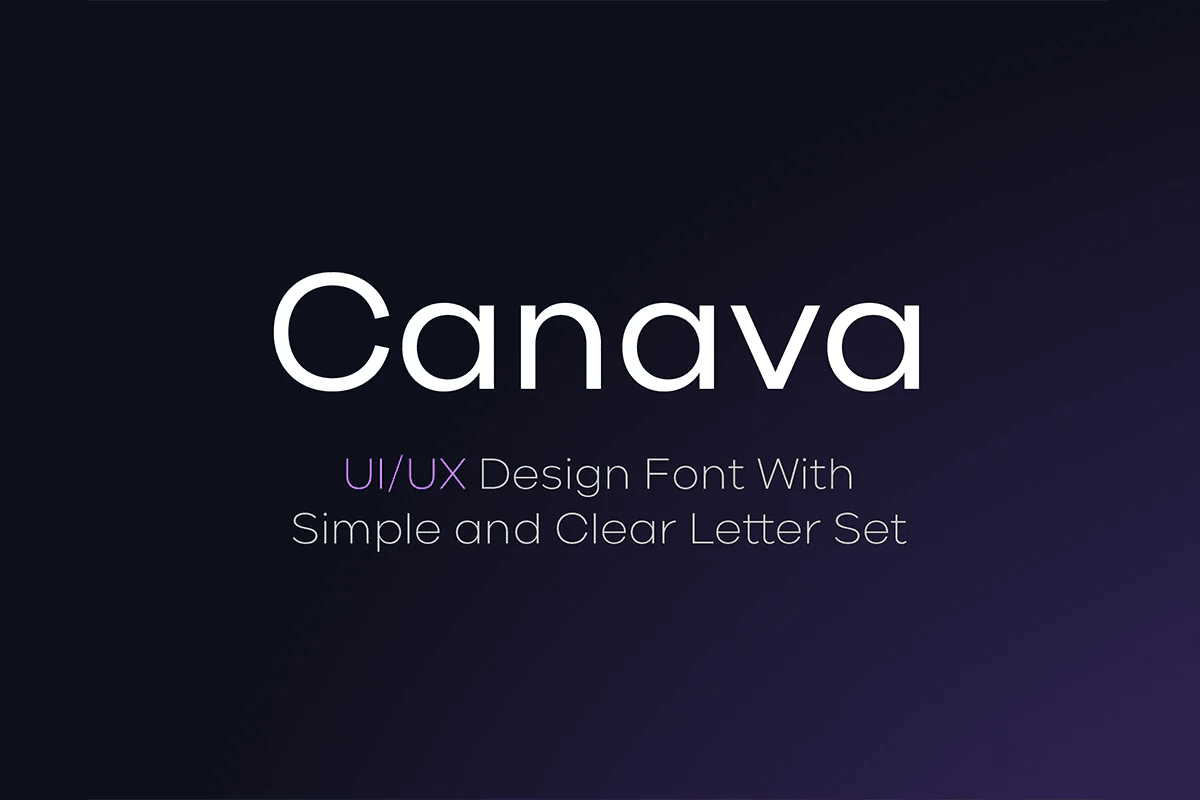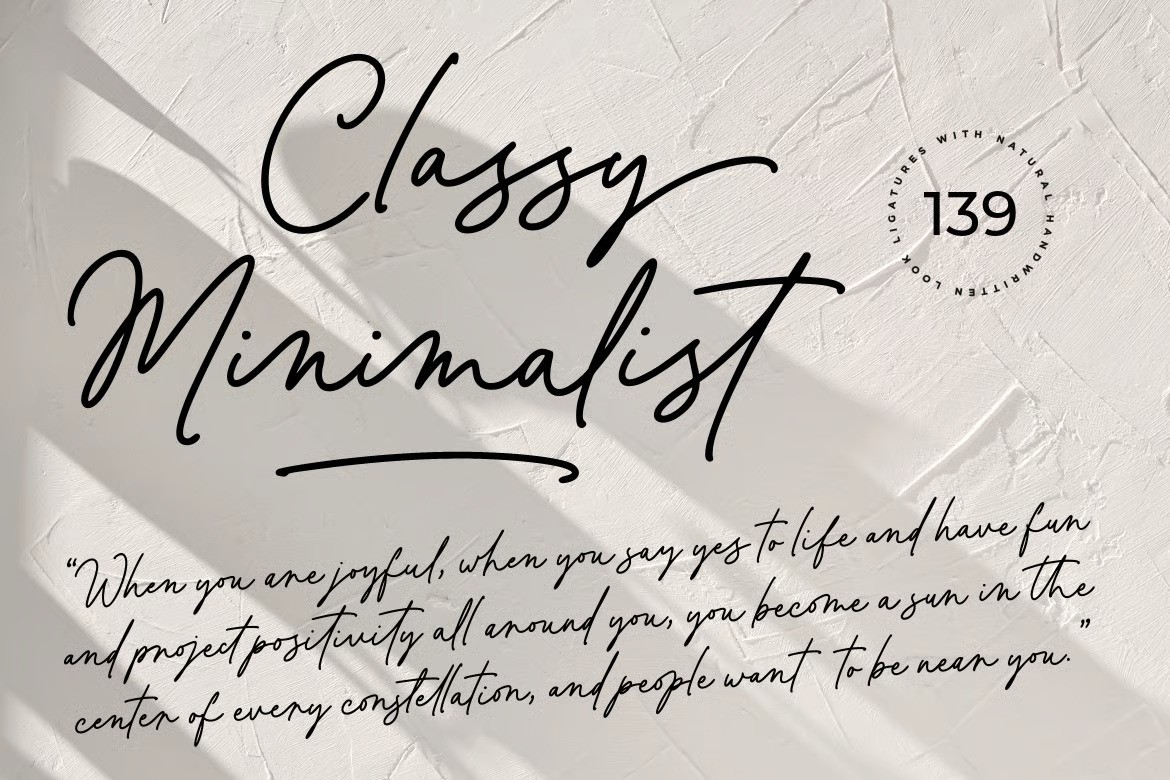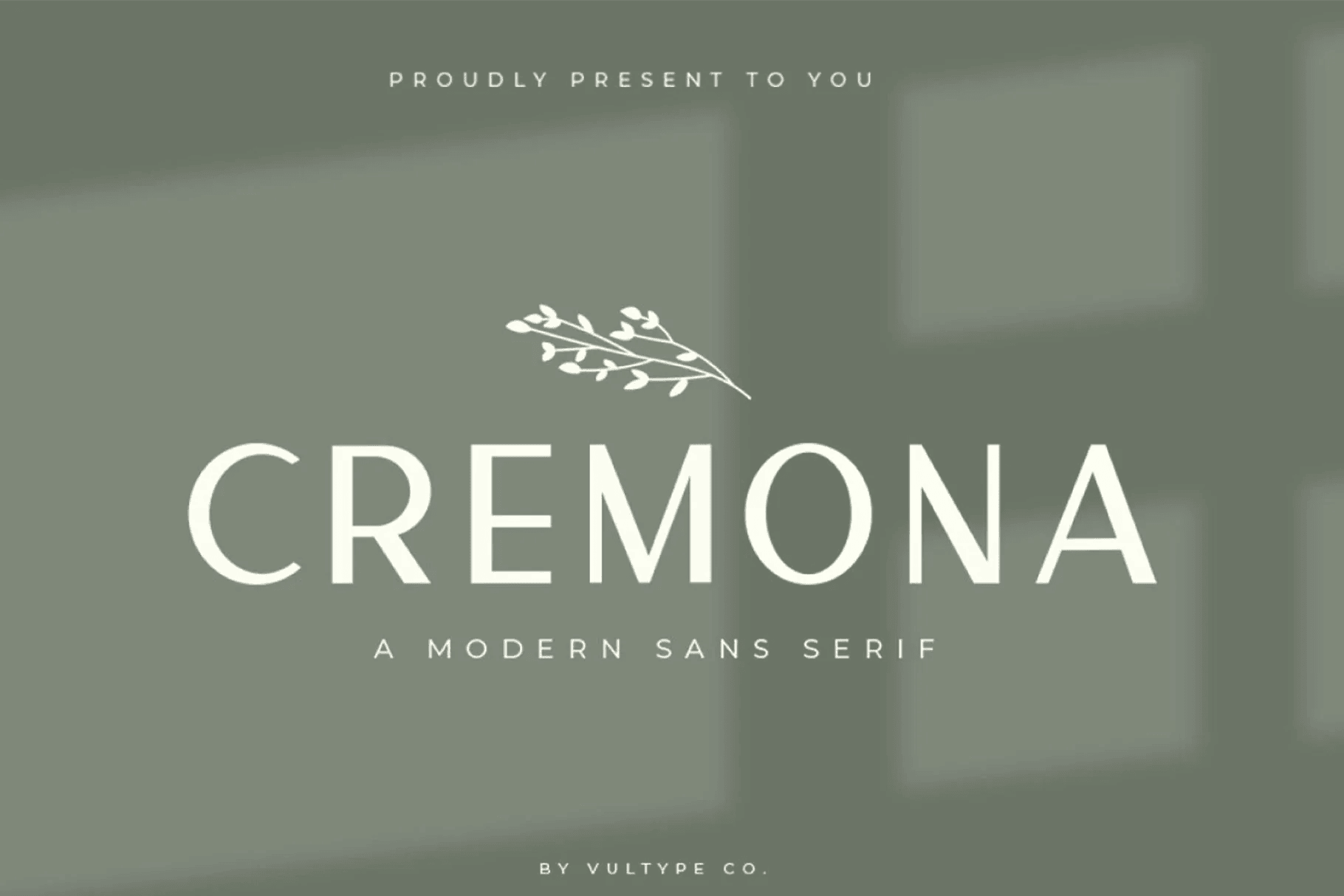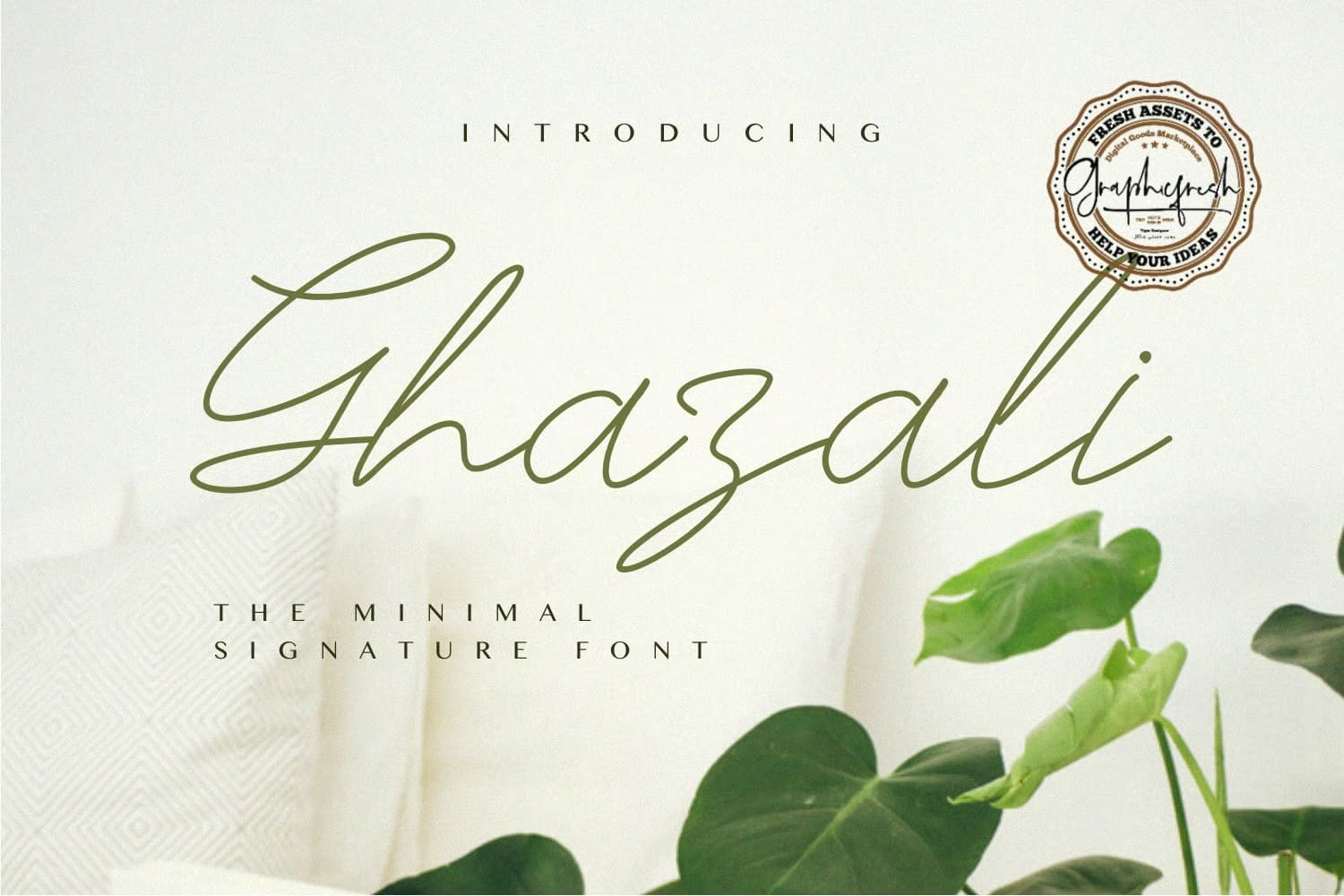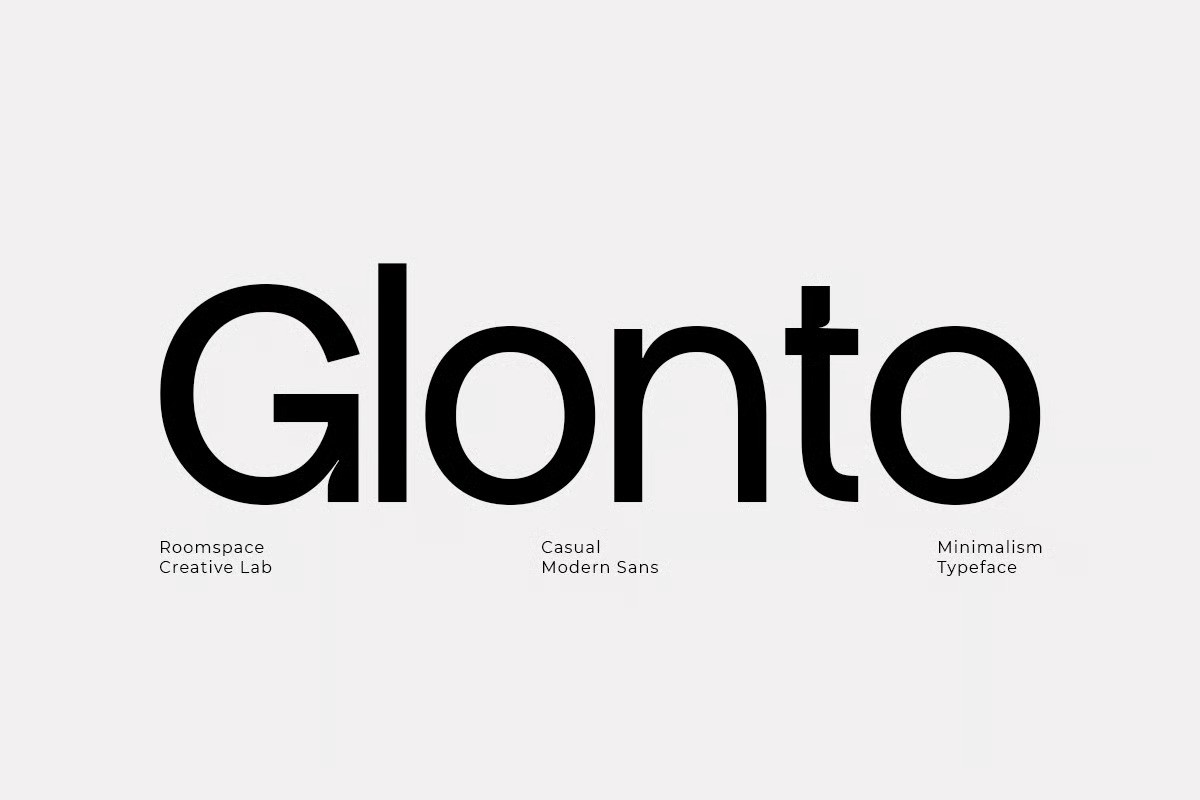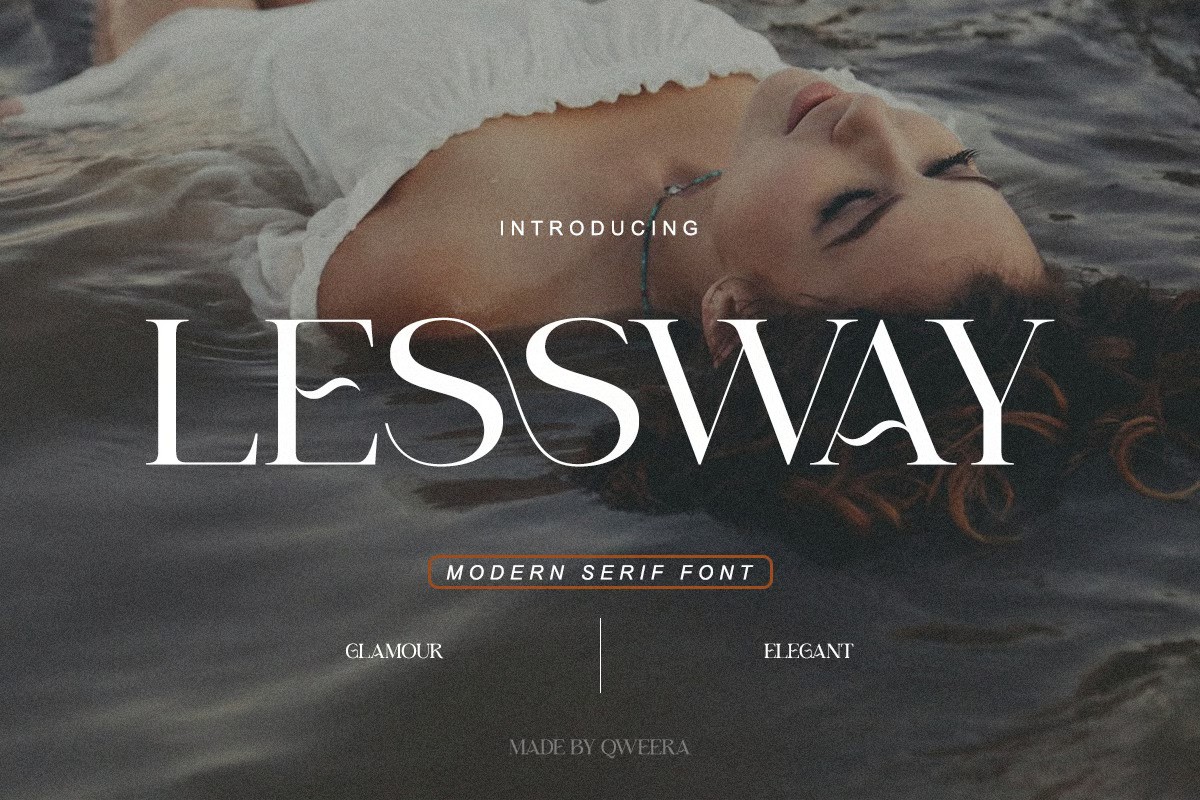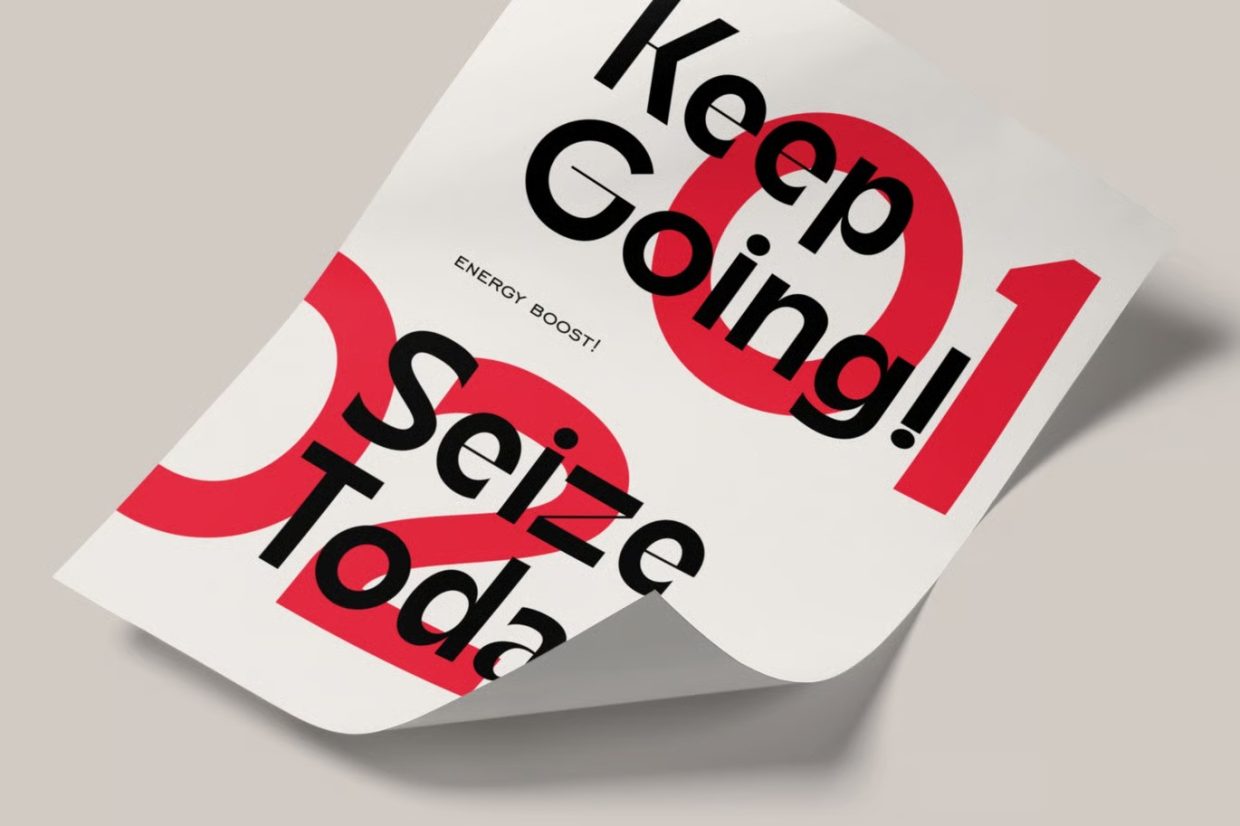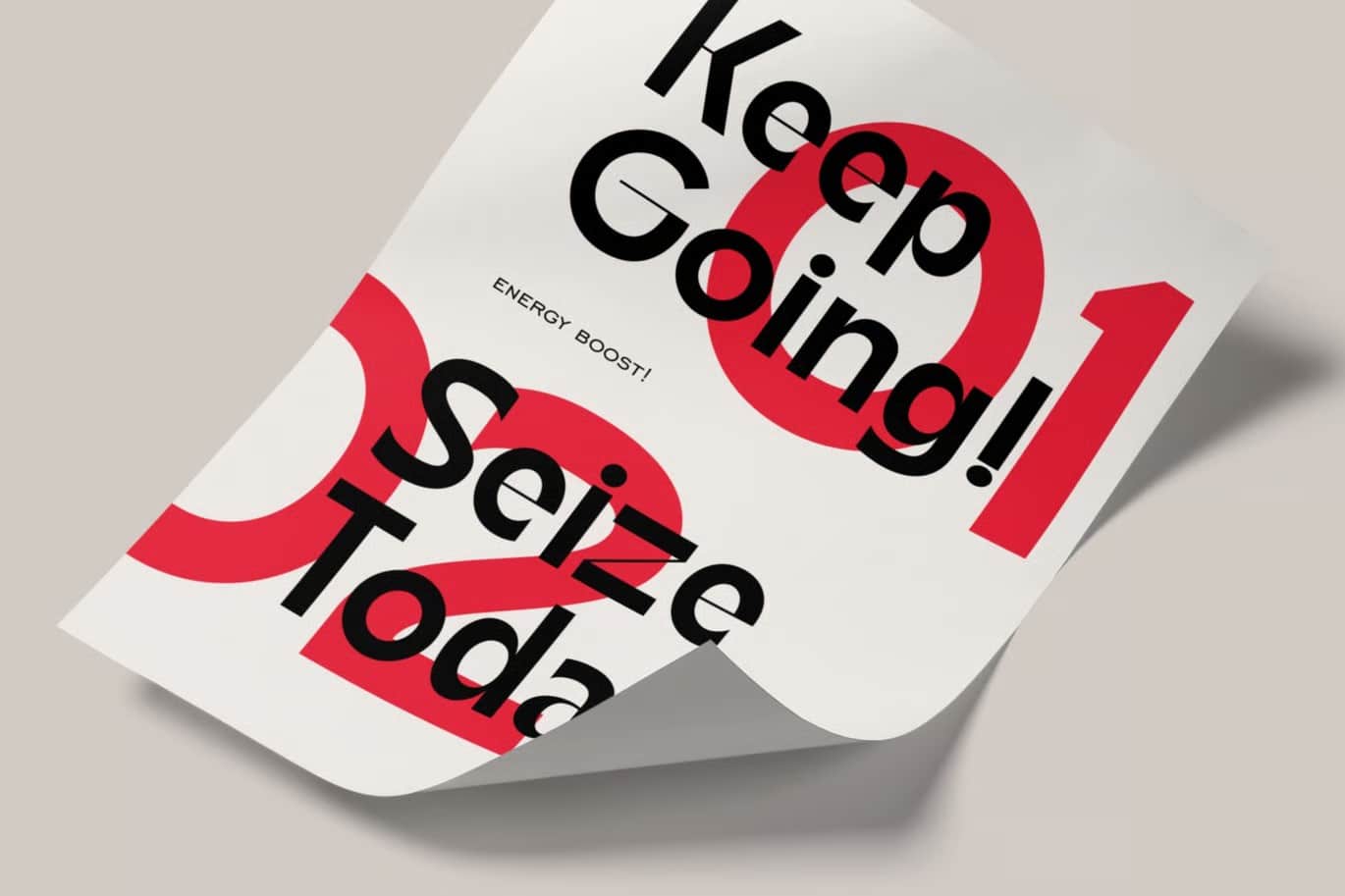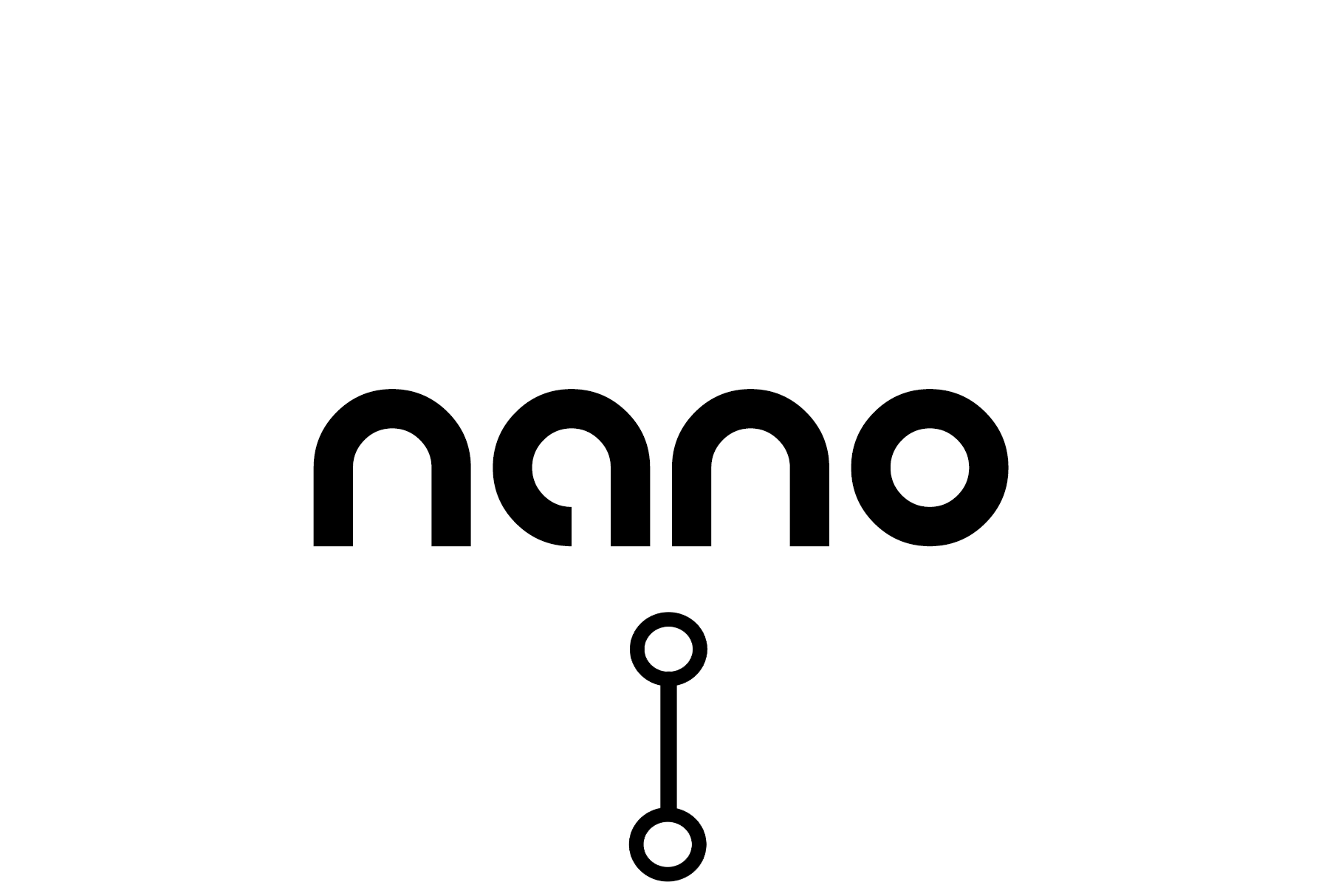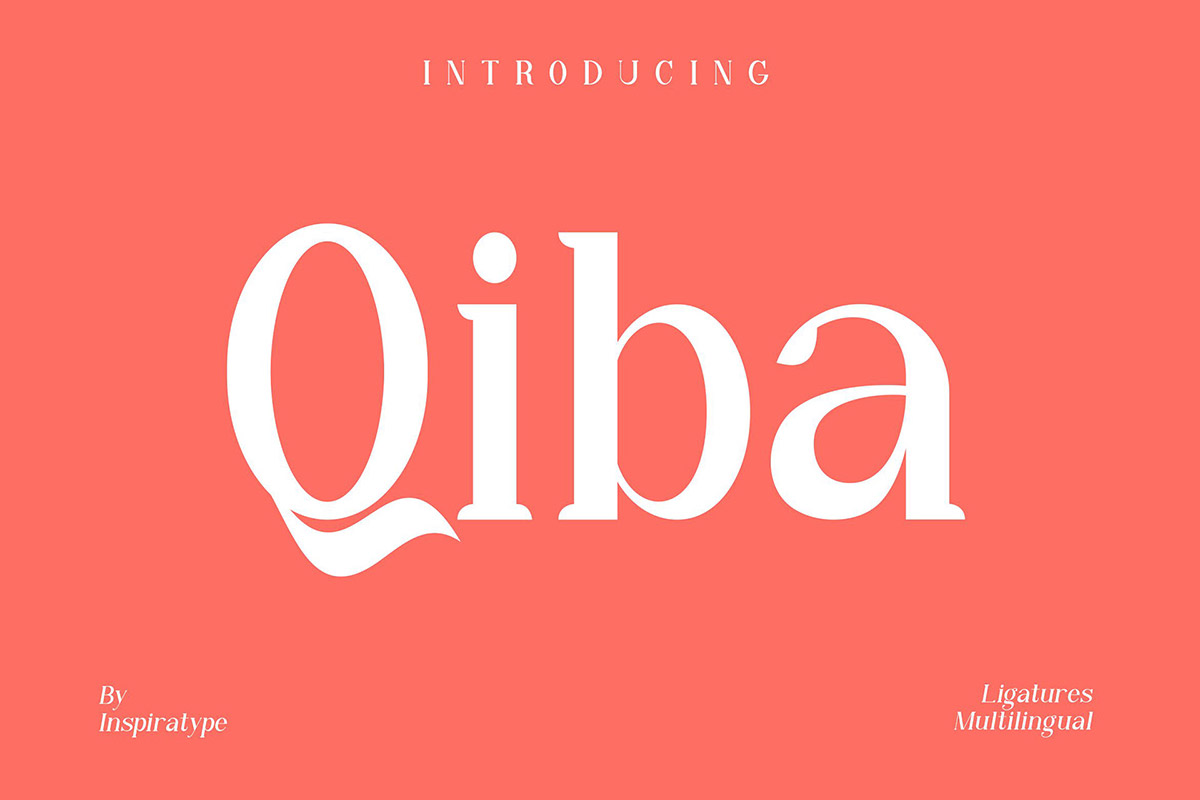
30 Minimalist fonts to create aesthetic confidence in design
Minimalist fonts may be what you've been looking for.
This time we offer you a wonderful minimalist fonts collection, whose typography is not easy to put together. We want you to get the most out of your design projects. These fonts are definitely worth your attention.
Minimalism came from Scandinavia, they were the first to find that spice that the whole world admires. Minimalist fonts are something that will fit into any design. You can incorporate it into magazines, titles, logos, brand identity, small and big text, no matter where because it will look complete, restrained and clean design.
Carnaby – minimalist fashion font
A minimalist fashion typeface
A sans serif typeface. It has minimalist look to fashion branding, interior designs, advertisements, websites, and more. Comes in uppercase and lowercase characters, numerals, punctuation, alternates, ligatures + multilingual support.
Nemonty – minimal serif font
A graceful, thin serif font designed to highlight your brand image. Includes a range of alternates, providing creative flexibility for custom wordmarks and unique logo designs. Ideal for luxury branding, packaging and editorial use. Comes in uppercase and lowercase characters, numerals, punctuation, alternates, ligatures + multilingual support.
Mindglow – modern minimalist font
A minimalist modern sans font
Elegant minimalist classic sans serif font. It has a comprehensive support for both uppercase and lowercase letters, punctuation marks, and numerals. This font is versatile and can be used across various applications, including branding, invitation design, editorial design, web design, packaging, product catalogs and more.
Brogman – minimalist display font
An elegant minimalist sans serif typeface
It is an elegant minimalist sans serif display font crafted for sophistication and clarity. Its clean lines, refined shapes, and modern proportions make it a versatile choice for branding, luxury packaging, editorial layouts, and digital interfaces.
Towards – minimalist stencil font
A minimalist stencil font
A minimalist stencil font so good going for your designs such as logos and branding, photography, invitations, watermarks, advertisements, product designs, stationery, wedding designs, and more. PUA encoded characters. Include multilingual support.
Vistol – free black sans serif font
A free sans serif font
A neo-grotesque sans-serif typeface family. It suitable for printing, packaging, articles, titles, editorials, publishing, logos, branding, small or large text usage. Comes in multilingual support.
Canava Grotesk – free font
A free simple and clear font
A clean and sleek appearance ensures high readability, which means it’s a great fit for your UI/UX designs. achieved through multiple OpenType features such as case sensitive forms, contextual and stylistic alternatives. It supports many languages.
Download Font
Mango – free round font
• Free for personal use only.
A free round style font
A free geometric and minimal lowercase font. This fresh futuristic font includes a unique character set with some spectacular clean letterforms. It suitable for any modern design projects related to the future, perfect for original logos and headlines.
Download Font
Nano – free minimal logo font
• Free for personal and commercial use.
A free minimal logo font
A new free futuristic lowercase font. It includes ultra modern minimalist letterforms which make it perfect for modern branding and logos.
Download Font
Qiba – free simple serif font family
• Free for personal use only.
A free simple serif font family
A font made by hand, inspired by classic posters. It comes with uppercase and lowercase characters. Perfect for invitations, monograms, wedding, fashion, branding, signatures, stationery, logotypes, letterhead, posters, apparel designs, labels, and more.
Download Font
Limerock – free sans serif font
• Free for personal use only.
A free sans serif font
This clean and simple minimalist style font is free to use. It includes both uppercase and lowercase characters, as well as numbers and symbols. The font is most suitable for creative projects such as logos, titles, headlines, and more.
Download Font
Cremona – free modern sans serif font
• Free for personal use only.
A free modern sans serif font
A clean and elegant style font makes it a great choice for designing professional branding designs. The free version of the font can be used with your personal projects.
Download Font
Hand Midas – modern minimalist serif font
A minimalist serif typeface
A minimalist serif font that exudes an aura of wealth and sophistication, as the name suggests. Suitable for conveying messages of luxury and exclusivity. Comes in uppercase and lowercase characters, ligature and multilingual support.
Download Font
Disttopian – free san serif font
A free minimalist sans serif font
An elegant sans serif font. Its perfect for any branding projects, lettering, invitations, stationery, quotes, logos, blog headers, posters, and more. Comes in OpenType features.
Download Font
Classy Minimalist – a handwritten font
An minimalist handwritten font
A stunning handwritten typeface that features 139 ligatures for a natural and sophisticated handwritten look. Its beauty is perfect for weddings design, valentines, invitations, branding, quotes, and more. Comes uppercase and lowercase characters, numbers, symbol, punctuation, alternates, ligatures, swashes and PUA encoded.
Download Font
Cecilia Octavia – minimal sans serif font
A minimal display font
A minimal sans serif font with modern and elegant vibes. It perfect font for modern logos, monograms, attention grabbing headlines and invitations. The package includes two weights – (regular and bold). It is also multilingual and comes with a set of special glyphs.
Download Font
Empira – minimalist font
A minimalist rounded font
A minimalist rounded font in regular and italic weights. Soo good for titles, headlines, covers, logos, and more.
Download Font
Lessway – elegant luxury logo font
An elegant luxury logo font
A sophisticated serif typeface that exudes refined elegance and contemporary luxury. Featuring both Regular and Italic styles with exquisite alternates and ligatures, this font is meticulously crafted for high-end branding, luxury logos, premium packaging, and editorial designs.
Download Font
Auvelle – minimal sans serif font
A minimalist hairline display typeface
A display font that perfectly fits for headlines, logos, branding, packaging, t-shirts, or any design with a stand out or big typography. Comes in multilingual support.
Download Font
Ghazali – a minimal signature font
A minimal signature font
It comes with an elegant and feminine style which is ideal to make any design stand out. This font is perfect for branding, wedding invites, magazines, mugs, business cards, quotes, posters, and more. Includes uppercase and lowercase characters, numeral, punctuations, PUA encoded and support international languages.
Download Font
Bon Apit – a handwritten font
A natural handwritten font
A monoline script typeface with extra features. It comes in a handmade style and can perfectly be used for an elegant addition to any logos, invitations, product packaging, hand-written quotes, and more. Includes multi-lingual support and special ligatures.
Download Font
Rota – free sans serif font family
• Free for personal and commercial use.
A free geometric font family
A complete free geometric font family. It has the versatility to be used for the headings or body copy of whatever creative project you’re working on. With 20 fonts, you’re bound to find one that will fit all your needs.
Download Font
Rejova – free sans serif font family
• Free for personal use only.
A free sans serif display font family
A free display sans serif font family. Suitable to a wide variety of designs due to its neat and simple style, it has the potential to become your favorite go-to font. It contains uppercase, numbers and symbols only. Great for writing web designs, business cards, flyers, posters, love letters, greeting cards and logos.
Download Font
Sooner – minimalist logo font
An minimalist luxury logo font
A minimalist luxury logo font designed to embody sophistication and simplicity. Ideal for high-end branding, modern logos, and stylish editorial designs. Comes in uppercase and lowercase characters, number, punctuation, symbol, ligature, OpenType features and multilingual support.
Download Font
Memoline – minimalist typeface
A minimalist typeface
A minimal and neat sans serif font. Comes in uppercase and lowercase characters, numbers, punctuation, PUA encoded and multilingual support.
Download Font
Ethos Nova – minimalist sans serif typeface
A minimalist sans serif typeface
A minimalist neo-geometric sans-serif typeface family of 12 fonts. Handcrafted and designed with powerful OpenType features in mind, each weight includes extended language support. An amazing option for branding, logos, design projects, marketing graphics, banners, and more.
Download Font
Glonto – minimalist typeface
A minimalist typeface
A clean and modern sans serif font designed with simplicity and elegance in mind. Perfectly suited for branding, UI/UX designs, editorial projects, and creative works. Comes in uppercase and lowercase characters, numbers, punctuation, and multilingual support.
Download Font
LE PÉTRICHOR – modern minimal font
A modern elegant minimal serif font
An elegant aesthetic serif font with 100+ alternates and ligatures that can be used as a wedding invitations, elegant branding, luxury designs, classic Logos, and more.
Download Font
Roigant – modern minimalist font
A modern minimalist sans serif font
A contemporary sans serif display font that’s modern, minimalist, and sleek. It excels in display settings such as headlines, titles, modern branding, editorial designs, bold signages, logos, posters, architecture, and more. Comes in OpenType features, uppercase and lowercase characters, number, symbol + multilingual support.
Download Font
Vogalis – minimalist serif font
A new elegant minimal serif font
A refined and modern typeface that perfectly blends elegance with simplicity. Perfect for luxury brands, creative agencies, and modern businesses. Comes in uppercase and lowercase characters, number, and punctuation.
Download Font
FAQ’s:
What is an minimalist font?
Minimalist fonts are clean, simple, and elegant, ensuring good readability when the circumstances allow. They are characterized by clean strokes and a minimal number of shapes. Below are some features you should pay attention to when choosing a minimalist font:
• Clean lines and sharp edges;
• There are very few geometric shapes in the letters;
• White spaces give a modern and airy look;
• Design details with the necessary significance or purpose;
• Legibility: This means letters with large openings and clear shapes.
Why minimalist fonts trending?
Minimalist design is a popular trend these days, so these simple minimalist fonts have also been on the wave for years. Most designers prefer a clean and simple look in their projects because it gives the design a professional and attractive look.
What makes minimalist fonts so elegant and sophisticated?
Less is always more. These minimalist fonts can make any design look stunning without much effort. They are charming in their simplicity, which is why many designers choose them.
But what exactly gives them that sophisticated edge?
• The most obvious characteristic of minimalist fonts is their minimal weight.
• The minimalist nature of these fonts aligns perfectly with contemporary design trends.
• Clean, uncluttered aesthetics.
• Many high-end fashion, beauty, and lifestyle brands have embraced minimalist fonts in their visual identities.
• The technical mastery required to effectively produce delicate letterforms without any effort.
When to avoid minimalist fonts?
• Minimalist fonts may appear broken or pixelated on older monitors or lower resolution screens. Always test your choices on different devices and with different screen characteristics.
• When designing for environments with challenging lighting conditions or high contrast requirements (such as outdoor signage), minimal fonts may lack the necessary visual weight to be legible and attractive.
• Visually impaired users may find minimalist fonts difficult to navigate, especially when there is insufficient contrast with the background. Always consider the needs of your audience.
Conclusion
We all use our imagination first when choosing a font for our design project. However, minimalism is close to the heart of many people due to its clear and consistent style. Minimalism follows us in our daily activities, even an uncluttered work environment gives us more freedom and pleasure to work.
I invite everyone to consider their choice in favor of a minimalist font. This is a convenient font, in many cases there is a whole family of fonts. So there is something to pay attention to. I wish everyone success and good work.
Tags:
FontsMinimalist Fonts
Share Our Post
Perplexity wants to buy Google Chrome
Previous Post
Perplexity offers to acquire Google Chrome for $34.5 billion
Instagram's new feature Picks
Next Post
Instagram is developing a feature called ‘Picks’
Popular Categories
Art Art
19 Posts
Creative Creative
98 Posts
Tech Tech
82 Posts
Blogging Blogging
14 Posts
AI AI
77 Posts
Most Viewed
Free fonts cover
100 Best free fonts (2025)
October 25, 2025
A tumbler mockup cover
35 Tumbler mockup templates to elevate your beverage branding
December 17, 2025
A robot fonts cover
25 Advanced robot fonts for best sci-fi designs